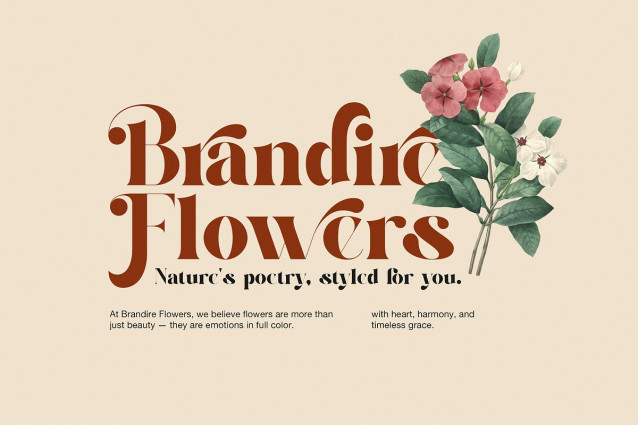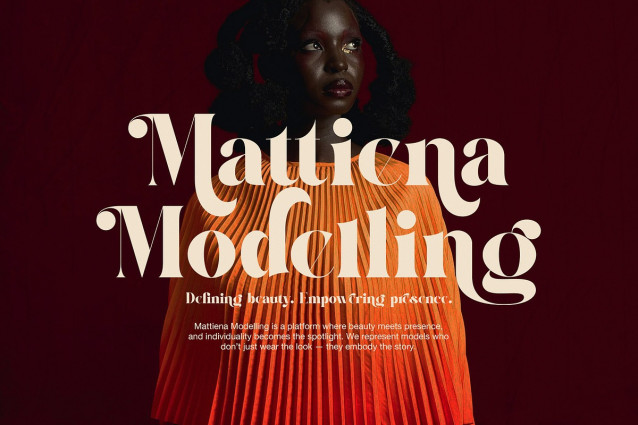
Bufing Font
Bufing Font is a stylish serif typeface with a classic look that fits many design needs. It combines old-school charm with clean, easy-to-read letters. This makes it perfect for branding, logos, packaging, and magazine layouts. Bufing Serif adds a warm, friendly feel to your projects while keeping them professional.
This font works well for headlines, titles, and body text because it is clear and simple. Its sharp serif edges give your design a strong but gentle presence. You can use it in print or on screens without losing style or clarity. Bufing Serif also comes in different weights and styles, so you can use it to make your message stand out or blend smoothly with other design parts.